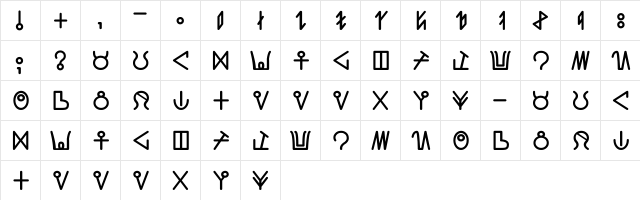
LALProto Bold
Design Context for LALProto Typeface
LALProto offers clean, dependable letterforms without strong stylistic allegiance, making it a practical choice for designers who need flexibility. Its bold stroke weight gives it real presence on the page.